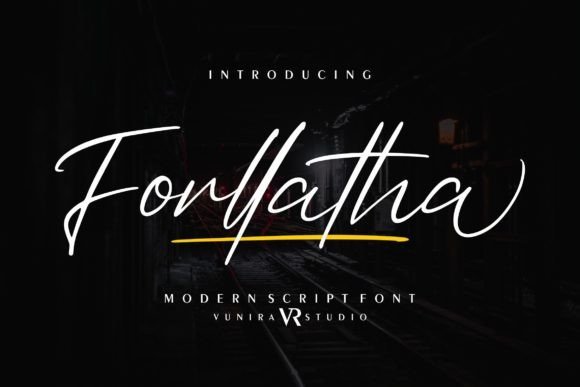
Unleashing Creativity with the Forllatha Font
Enter the Forllatha Font, a beautiful and light handwritten font that adds a touch of luxury to any design project. With its unique feel and stunning impact, this font is the perfect companion for designers looking to elevate their work. Whether you’re working on a high-end branding project or a personal passion project, the Forllatha Font is sure to bring your vision to life.
As a PUA-encoded font, Forllatha Font offers unparalleled accessibility to its amazing glyphs and ligatures, making it a valuable addition to any designer’s toolkit.
Forllatha Font Key Features
- Unique Characteristics: Forllatha Font features a unique blend of modern and traditional elements, with a distinctive flair that sets it apart from other fonts in its class.
Forllatha Font Review
Overall, I think Forllatha is a unique and interesting font that can add a lot of character to certain designs. ✨ Its eclectic, handwritten feel makes it perfect for projects that need a personal touch.
- ✨ The font’s organic feel is great for creating a sense of warmth and approachability.
- ✨ The varying line widths and irregularities add visual interest and make the font feel more dynamic.
- ✨ The font is highly legible, even at smaller sizes, making it suitable for a wide range of applications.
- ⚠️ The font may not be suitable for projects that require a more formal or professional tone.
- ⚠️ The font’s irregularities can make it difficult to pair with other fonts, especially those with more rigid structures.
- ⚠️ Some users may find the font’s imperfections distracting or unprofessional.
Overall, I think Forllatha is a great choice for designers who want to add a touch of personality to their projects. However, it may not be the best fit for every design task. With careful selection and application, it can be a powerful tool for creating unique and engaging designs.
Forllatha Font is ideal for creating elegant and modern designs. It’s commonly used for:
– Book covers and publishing materials
– Web design and digital media